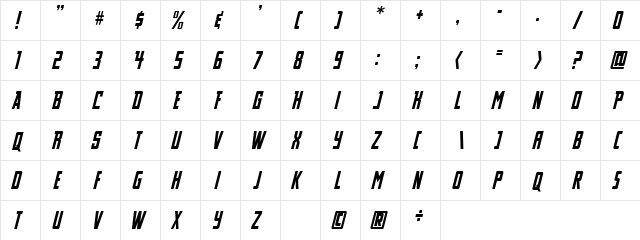
CC Stand By4 Action Medium
Design Context for CC Stand By4 Action Typeface
CC Stand By4 Action is a composed and adaptable typeface that performs quietly and consistently across a wide range of design contexts.